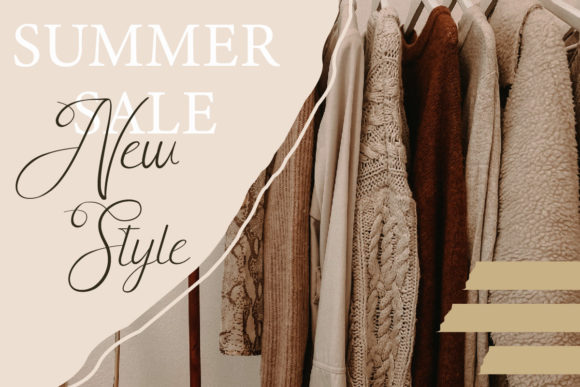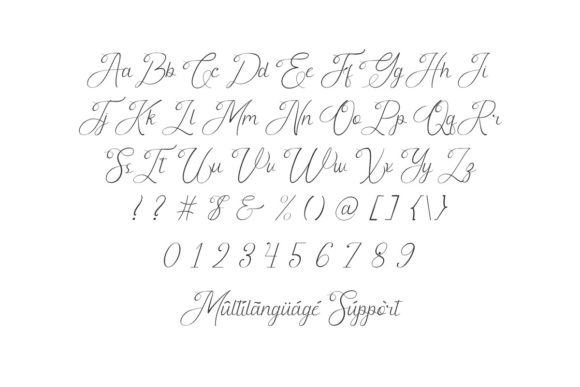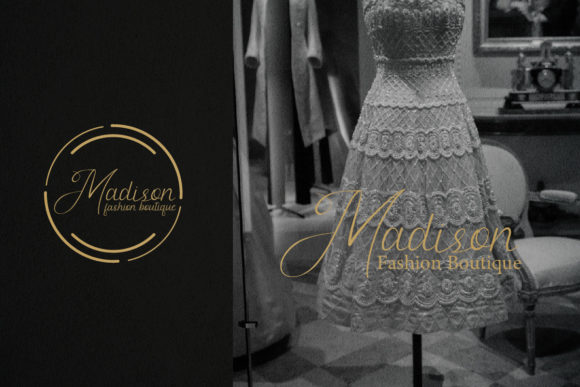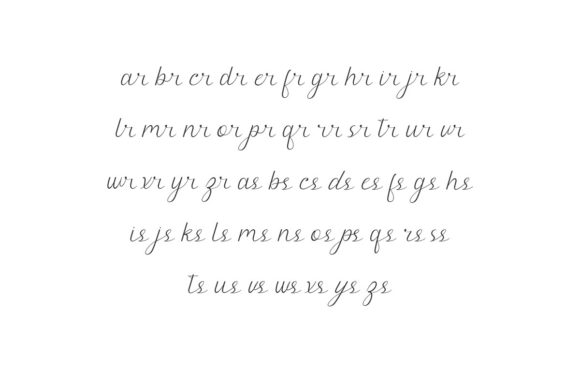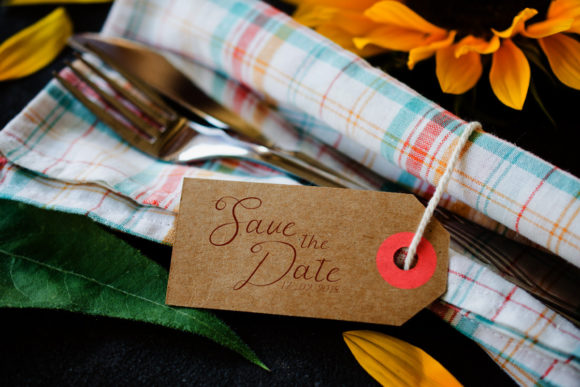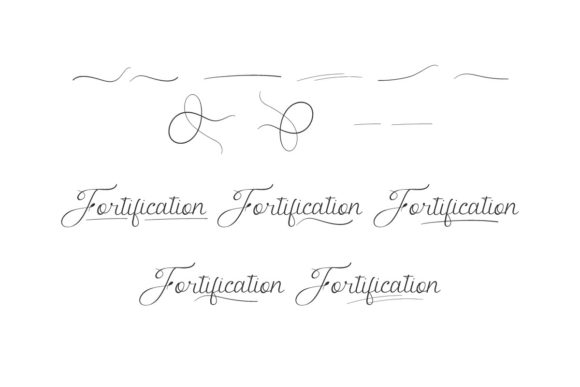
Introducing Fortification Font: A Timeless Script Font for Creative Projects
Are you a designer or crafter looking for a unique and elegant font to elevate your creative projects? Look no further than Fortification Font, a well-balanced and vintage script font that’s perfect for a variety of applications. In this article, we’ll explore the features and benefits of Fortification Font, and show you how it can add a touch of sophistication and style to your work.
A Versatile Font for Multiple Uses
Fortification Font is a versatile script font that’s suitable for a wide range of creative projects. Whether you’re working on product packaging, branding projects, magazine covers, social media graphics, or wedding designs, this font is sure to impress. Its classic and timeless design makes it an excellent choice for anyone looking to add a touch of elegance and sophistication to their work.
Key Features of Fortification Font
- Well-balanced and vintage design: Fortification Font features a beautiful, well-balanced design that’s reminiscent of classic script fonts from the past. Its vintage charm makes it perfect for projects that require a touch of nostalgia and elegance.
- PUA encoded: This font is PUA (Private Use Area) encoded, which means you can access all of the glyphs and swashes with ease. This makes it easy to customize your text and add unique flourishes to your designs.
- Perfect for product packaging and branding: Fortification Font is an excellent choice for product packaging and branding projects. Its elegant design and classic charm make it perfect for creating eye-catching labels, logos, and marketing materials.
- Great for magazine covers and social media graphics: This font is also well-suited for magazine covers, social media graphics, and other digital projects. Its bold and eye-catching design makes it perfect for grabbing attention and standing out in a crowded online space.
- Ideal for wedding designs: Fortification Font is a popular choice for wedding designs, including invitations, programs, and other wedding-related materials. Its elegant and sophisticated design makes it perfect for creating beautiful and memorable wedding stationery.
Benefits of Using Fortification Font
So why choose Fortification Font for your creative projects? Here are just a few benefits of using this amazing script font:
- Elegant and sophisticated design: Fortification Font features a beautiful, elegant design that’s sure to impress. Its classic charm and timeless appeal make it perfect for projects that require a touch of sophistication and style.
- Highly versatile: This font is suitable for a wide range of creative projects, from product packaging and branding to magazine covers and social media graphics.
- Easy to use: Fortification Font is PUA encoded, which makes it easy to access all of the glyphs and swashes. This means you can customize your text and add unique flourishes to your designs with ease.
How to Use Fortification Font
Using Fortification Font is easy! Here are a few tips to get you started:
- Choose the right size: Fortification Font is a script font, and it’s best used at larger sizes. Try using it at 24 points or larger to really make your text stand out.
- Experiment with glyphs and swashes: Fortification Font features a range of glyphs and swashes that you can use to customize your text. Experiment with different combinations to create unique and eye-catching designs.
- Pair it with other fonts: Fortification Font pairs well with a range of other fonts, including sans-serif fonts and serif fonts. Try pairing it with a bold sans-serif font for a striking contrast.
Fortification Font is a beautiful and versatile script font that’s perfect for a wide range of creative projects. Its elegant design, classic charm, and high level of customization make it an excellent choice for designers and crafters. Whether you’re working on product packaging, branding projects, magazine covers, social media graphics, or wedding designs, Fortification Font is sure to impress. So why wait? Download Fortification Font today and start creating stunning designs that will leave a lasting impression!